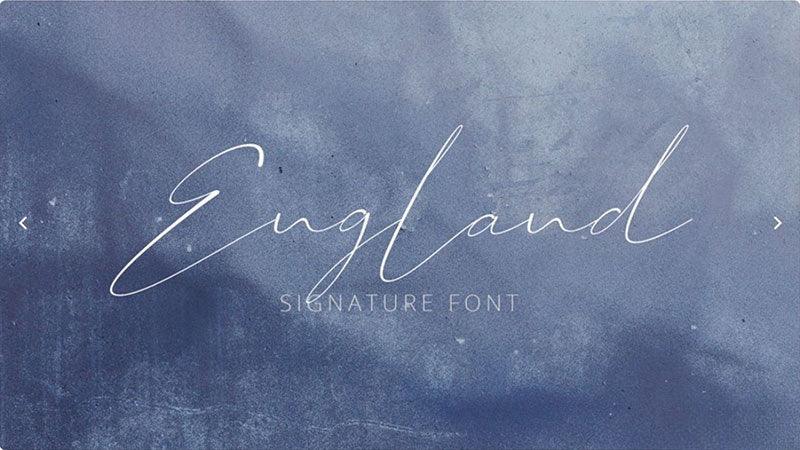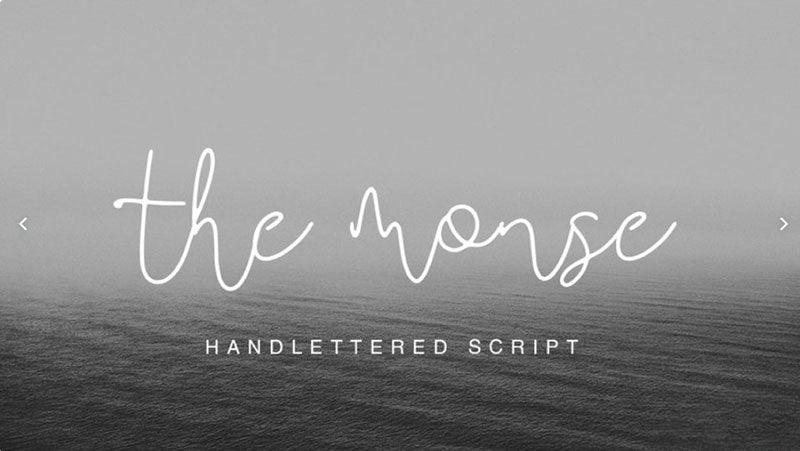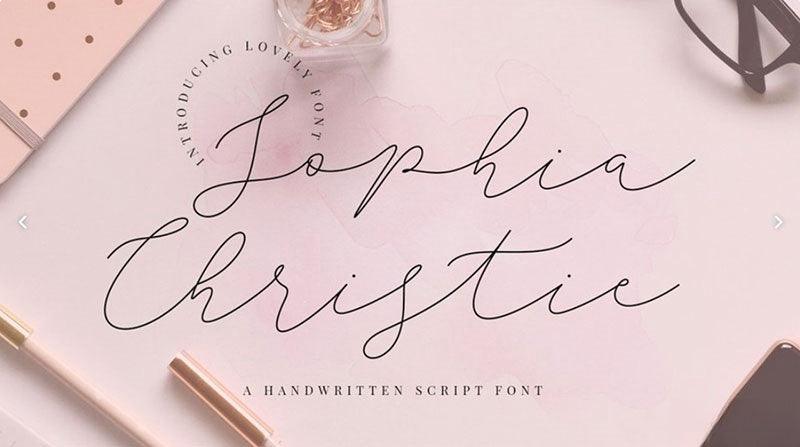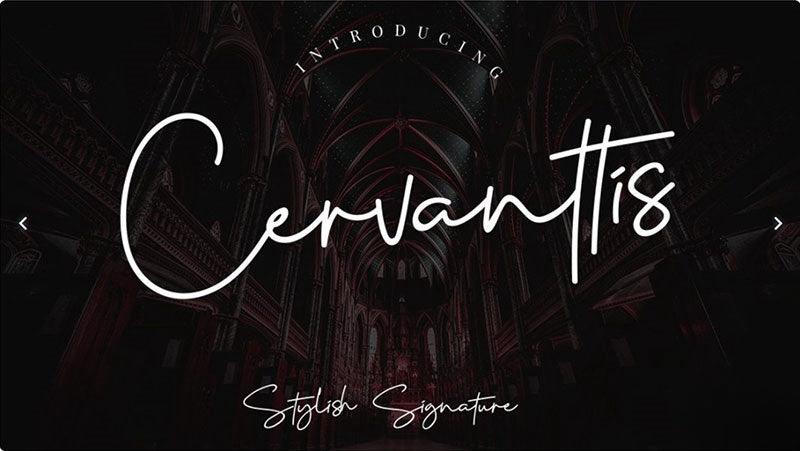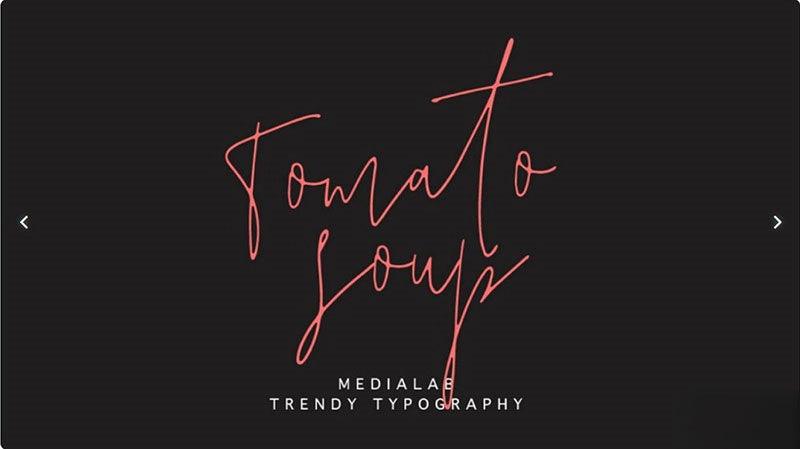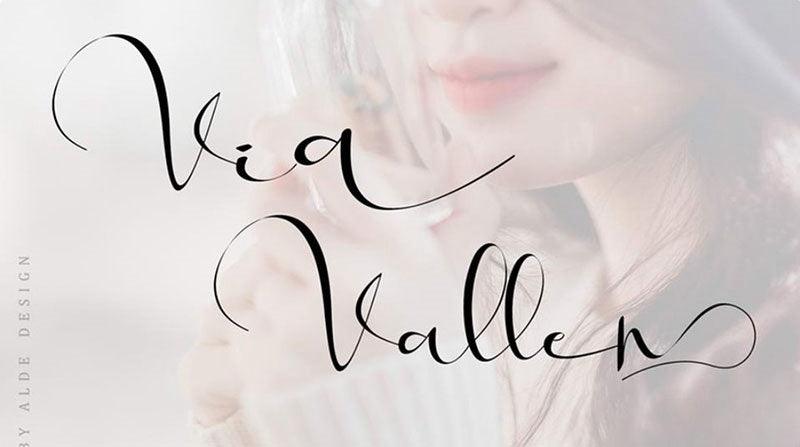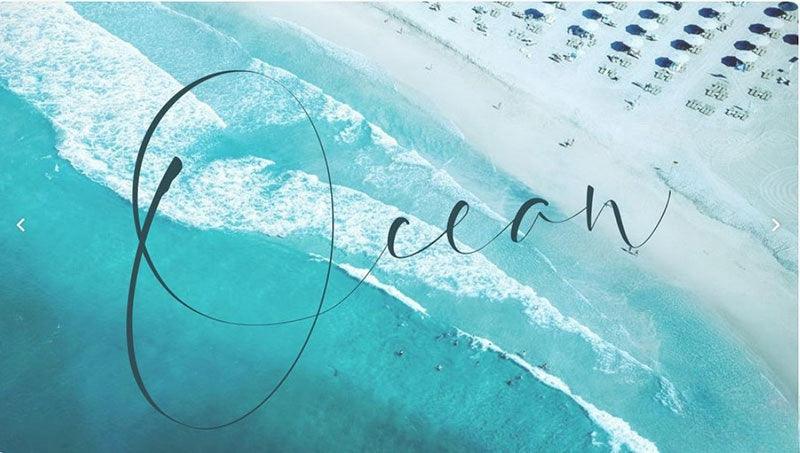
- Font Name: 10 Slender Elegant English Handwritten Fonts Pack
- Font Style: Slender / Elegant / Handwritten / Graceful & Artistic
- Application Scenarios: Wedding invitations, fashion brand logos, beauty product packaging, greeting cards, social media quotes, editorial designs, luxury brand visuals
- Exquisite Aesthetic Appeal: Features slender, flowing strokes and elegant letterforms, infusing designs with a refined, sophisticated charm.
- Delicate Design Details: Each font is crafted with precision, showcasing smooth curves and graceful structures, perfect for projects needing a touch of elegance.
- Versatile Usability: Ideal for romantic, high-end, or artistic designs—enhances wedding stationery, fashion content, beauty promotions, and other creative ventures.